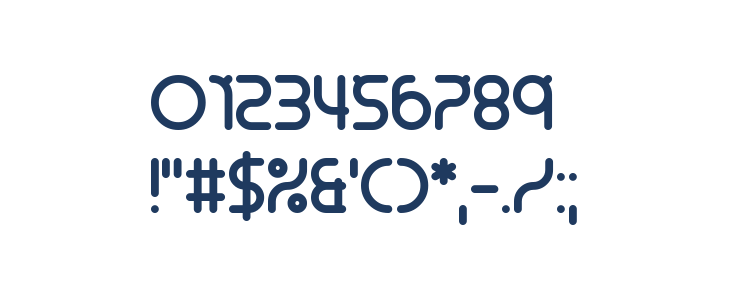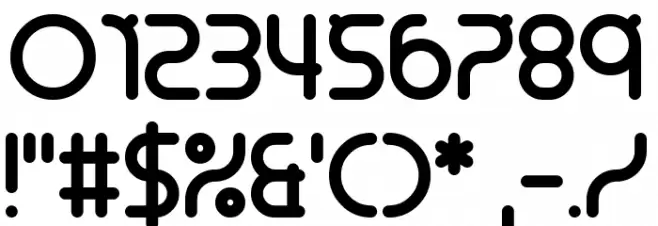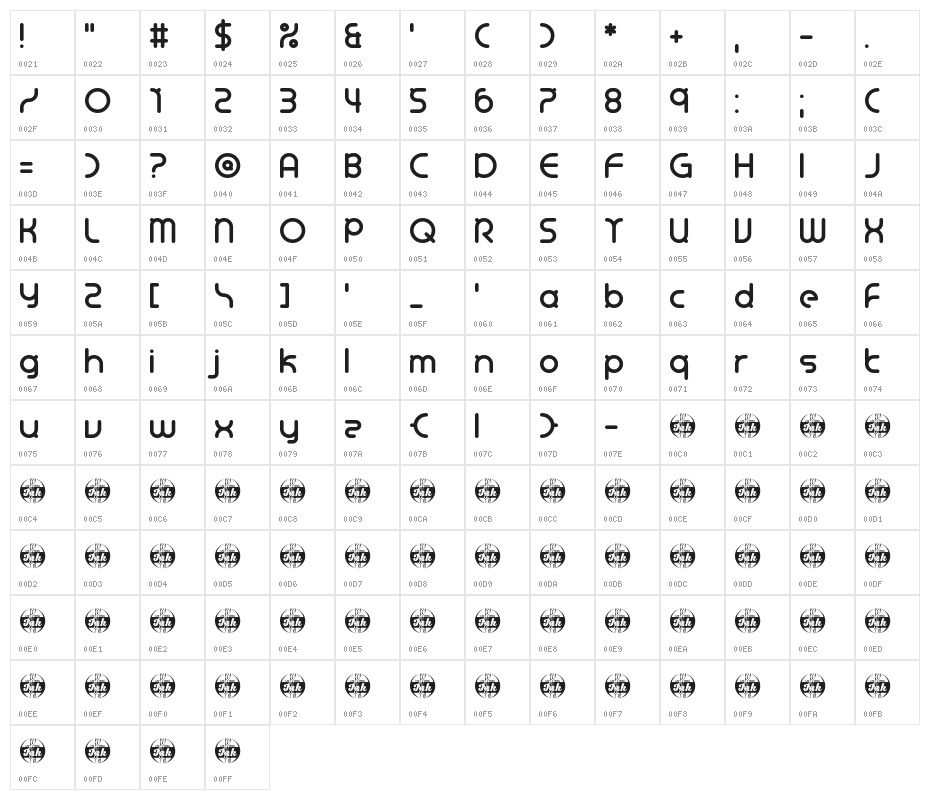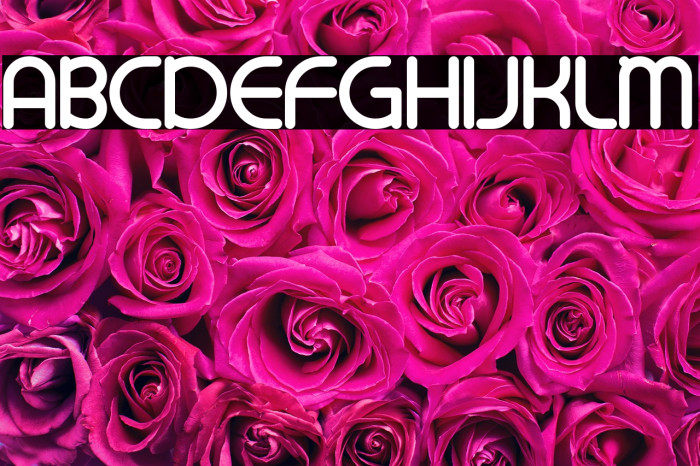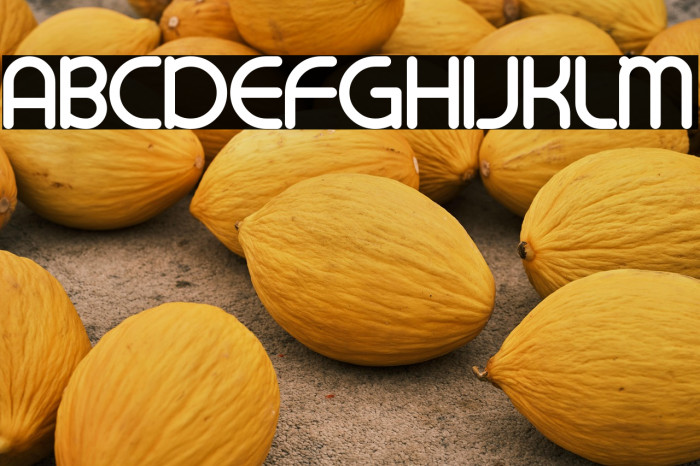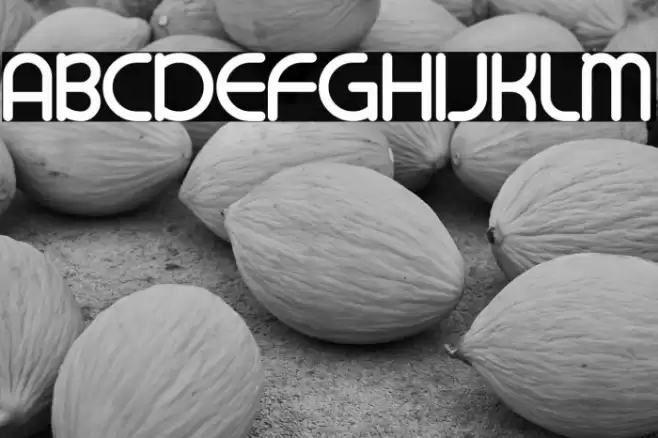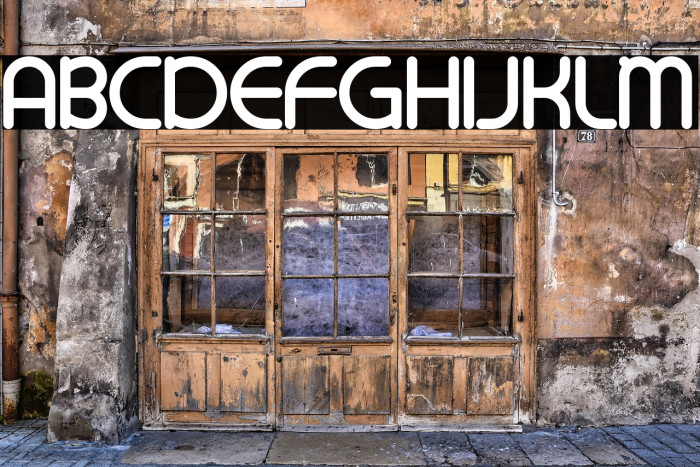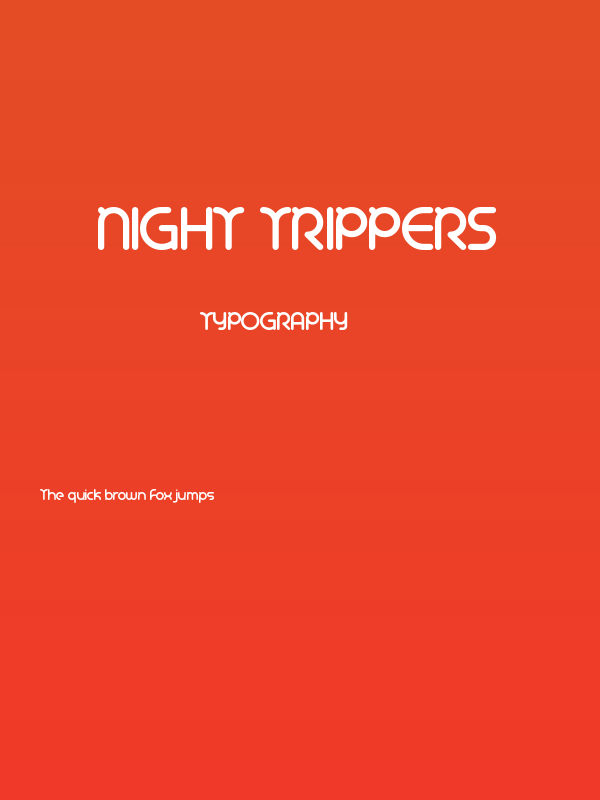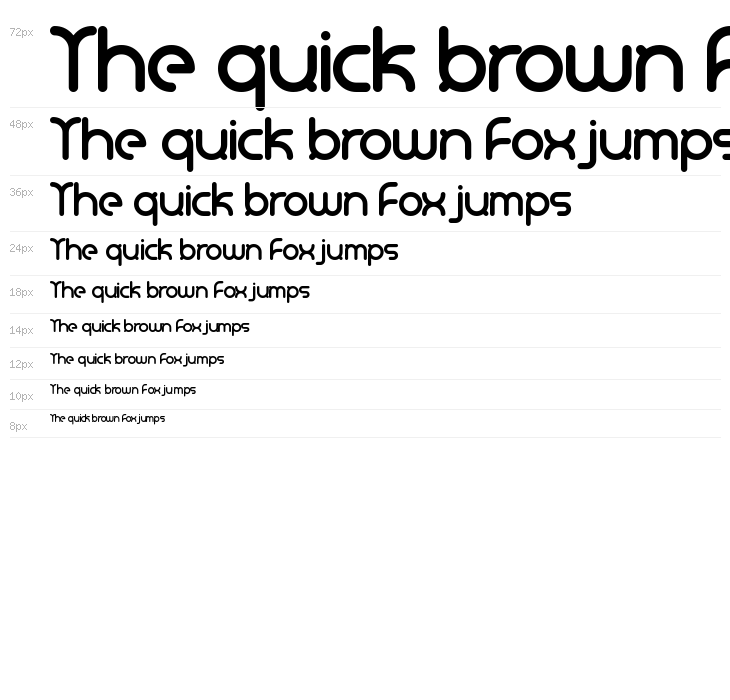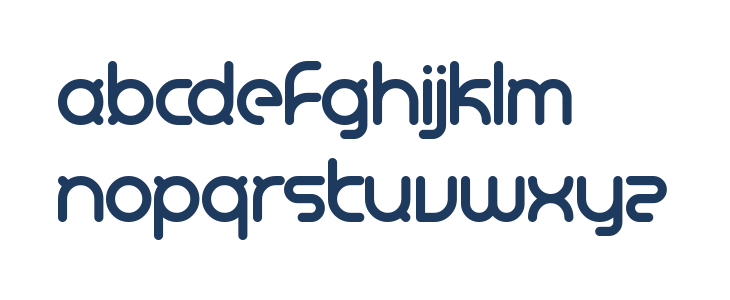
Night Trippers Font
Night Trippers Description
This font features a modern and playful design with rounded edges and a consistent stroke width. The characters are bold and have a futuristic feel, making them stand out with a unique personality. The uppercase and lowercase letters maintain a uniform style, with smooth curves and a slightly condensed appearance. The numerals and special characters complement the alphabet with the same rounded and bold characteristics. This font is ideal for projects that require a contemporary and eye-catching look.